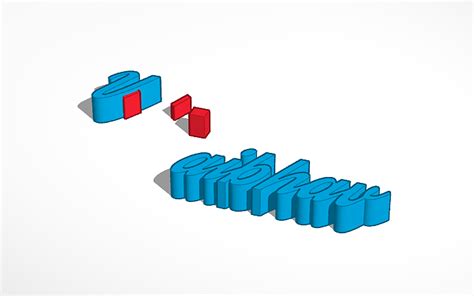
Pseiibullpense 3D Font: Free Download Guide
Hey guys! Are you on the hunt for that perfect font to make your designs pop? Look no further! Today, we’re diving deep into the world of the Pseiibullpense 3D font , a fantastic choice for adding depth and character to your projects. Whether you’re a seasoned designer or just starting, this guide will walk you through everything you need to know about this unique font and how to snag it for free.
What is the Pseiibullpense 3D Font?
Let’s kick things off by understanding what makes the Pseiibullpense 3D font so special. This font isn’t your run-of-the-mill typeface; it’s designed to create a three-dimensional effect, giving your text a visually striking appearance. Imagine your words leaping off the screen or page – that’s the power of a well-executed 3D font.
The Pseiibullpense 3D font stands out because of its bold and playful design. It often features rounded edges and a slightly whimsical feel, making it perfect for projects that need a touch of fun and creativity. Think logos, posters, headings, and even social media graphics – this font can elevate them all. What sets it apart is the simulated depth, which provides a sense of volume and shadow, mimicking real-world 3D objects. This effect is achieved through clever layering and shading techniques, giving the illusion that the text has actual physical dimension.
The versatility of the Pseiibullpense 3D font means it can be used in a wide array of applications. It’s particularly effective in grabbing attention, which makes it ideal for marketing materials and promotional content. Imagine using it for a sale announcement, a product launch, or even an event invitation. The 3D effect ensures that your message doesn’t just sit there; it commands attention. Moreover, it’s not limited to just commercial uses. Many designers incorporate it into personal projects, such as custom greeting cards, personalized gifts, or unique art prints. The font’s distinctive style can add a special touch to any creative endeavor, making it a go-to choice for those looking to make a statement. When used correctly, it can transform ordinary text into an eye-catching design element that leaves a lasting impression.
Why Use a 3D Font?
So, why should you even bother with a 3D font in the first place? Great question! Here’s the lowdown:
• Attention-Grabbing: In a world saturated with visual content, standing out is crucial. A 3D font instantly grabs the viewer’s attention, making your message hard to ignore.
• Modern and Stylish: 3D fonts have a contemporary feel, perfect for designs that need a modern edge. They add a touch of sophistication and innovation to any project.
• Versatile: Whether it’s for digital designs or print materials, a 3D font can be adapted to various mediums. From websites to posters, it fits right in.
• Adds Depth: Literally! The three-dimensional effect gives your designs a sense of depth and dimension, making them more engaging and visually appealing. It transforms flat, static text into something dynamic and captivating.
• Creative Expression: Using a 3D font allows you to express your creativity in a unique way. It offers a different aesthetic than traditional fonts, opening up new design possibilities and helping you create visually stunning compositions. It allows for experimentation with shadows, highlights, and layering effects, giving you more control over the final look and feel of your project.
The Pseiibullpense 3D font in particular offers these benefits while also providing a distinct personality. Its unique style can complement a wide range of design themes, from playful and whimsical to bold and impactful. Whether you’re working on a children’s book, a tech startup’s branding, or a music festival poster, this font can be tailored to suit your specific needs. The key is to use it judiciously and ensure that it aligns with the overall design aesthetic. Overusing any font, especially one as distinctive as a 3D font, can lead to visual clutter and detract from the message. However, when used thoughtfully, the Pseiibullpense 3D font can be a game-changer, transforming your designs from ordinary to extraordinary.